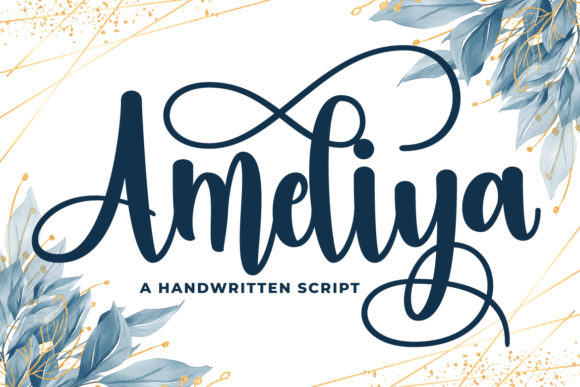
The Ameliya Font: A Beautiful Script to Elevate Your Designs
I still remember the time I was working on a wedding invitation project, and I just couldn’t find the perfect font to capture the elegance and romance of the occasion. The client was specific about wanting something that felt authentic and sophisticated, but not too over-the-top. I scoured through font libraries, but nothing seemed quite right. That was until I stumbled upon Ameliya Font. ✨
Ameliya is a beautiful and elegant script font that has become a staple in my design toolkit. Its authentic feel and versatility have won me over, and I’m excited to share my love for it with you. In this article, we’ll dive into what makes Ameliya special, its features, and how to make the most of it in your designs.
An Honest Review of Ameliya Font
- ✨ Elegant and sophisticated, perfect for wedding invitations, stationery, and luxury branding
- 💕 Authentic feel that adds a touch of warmth and personality to your designs
- 👍 Highly legible, even at smaller font sizes
While Ameliya is an amazing font, there are a few things to keep in mind: 🤔
- ⚠️ Some users may find the font a bit too ornate for very casual or playful designs
- ⚠️ As with any script font, it may not be the best choice for very long blocks of text
The Story Behind Ameliya Font
Ameliya Font was designed with love and care by a team of typographers who wanted to create a beautiful, elegant script font that would inspire designers and crafters alike. The font is named after a fictional character, Ameliya, who embodies the qualities of elegance, sophistication, and warmth. The design team drew inspiration from classic script fonts, but with a modern twist to make it more versatile and user-friendly.
Q: Is Ameliya Font suitable for body text?
A: While Ameliya is a beautiful font, it’s best suited for headlines, titles, and short blocks of text. For longer blocks of text, you may want to consider a more legible font.